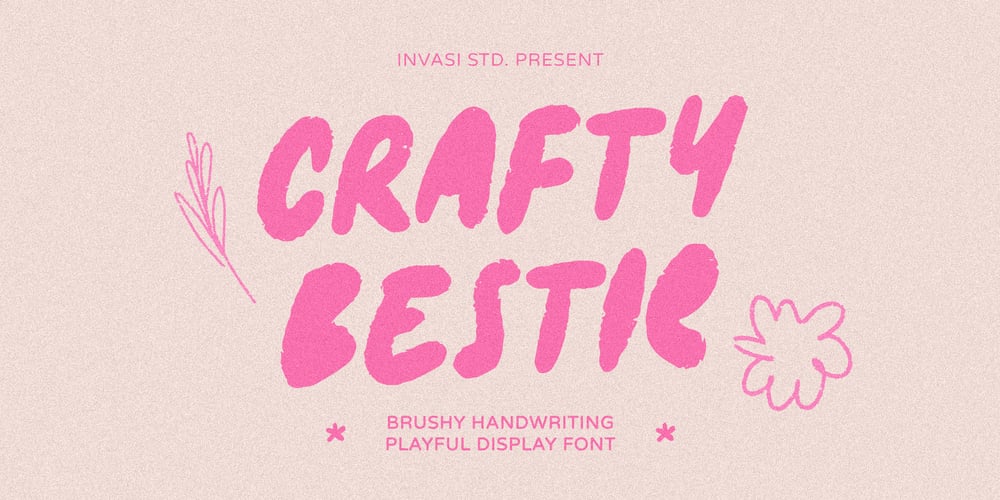
Crafty Bestie Font Family was designed by Gha Arizal and published by Invasi Studio. Crafty Bestie contains 1 styles and family package options. Introducing our new Fun Font Collection. A new display font from Crafty Bestie that combines a hand-drawn style with a brush texture touch. Crafty Bestie comes with Alternates that you can use to give more options to your projects.The Crafty Bestie is perfect for branding projects or packaging that need a playful feel.